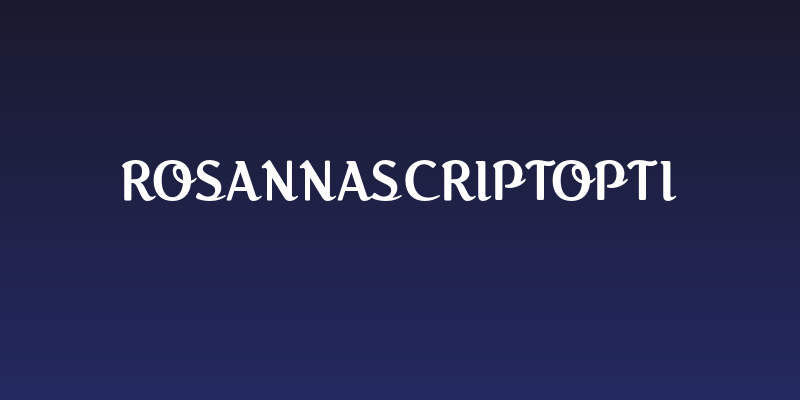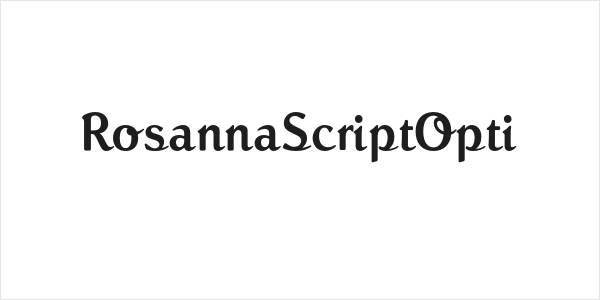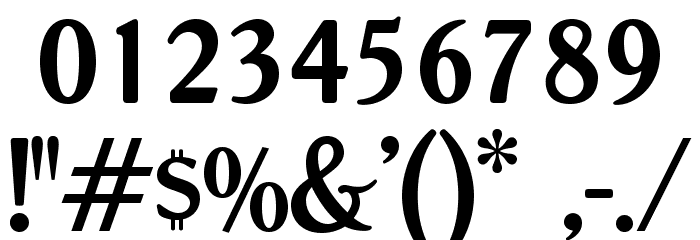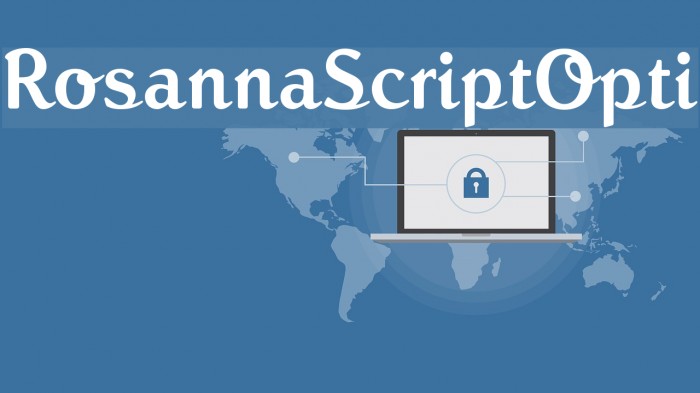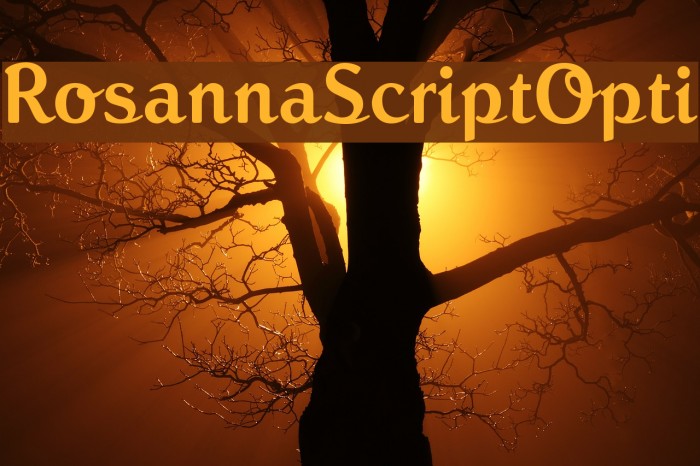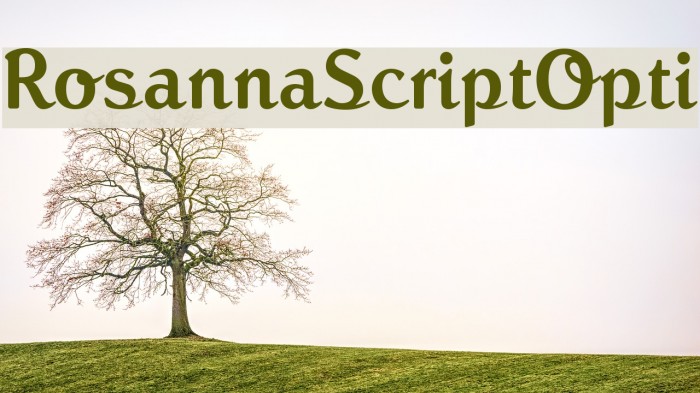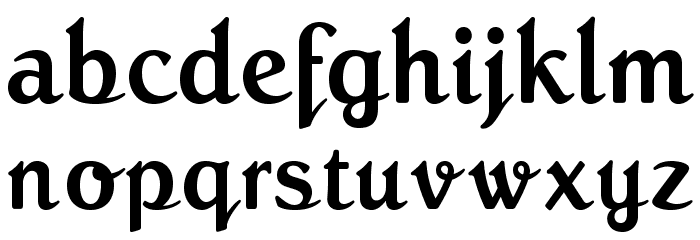
RosannaScriptOpti Font
RosannaScriptOpti Description
This font features a unique blend of elegance and readability, characterized by its flowing, script-like appearance. The uppercase letters exhibit a graceful curve with distinct serifs, while the lowercase letters maintain a consistent style that complements the uppercase. The numerals are clear and legible, making them suitable for various applications. Special characters are designed with the same attention to detail, ensuring a cohesive look across all glyphs. The overall design is both sophisticated and versatile, making it ideal for projects that require a touch of class and distinction.